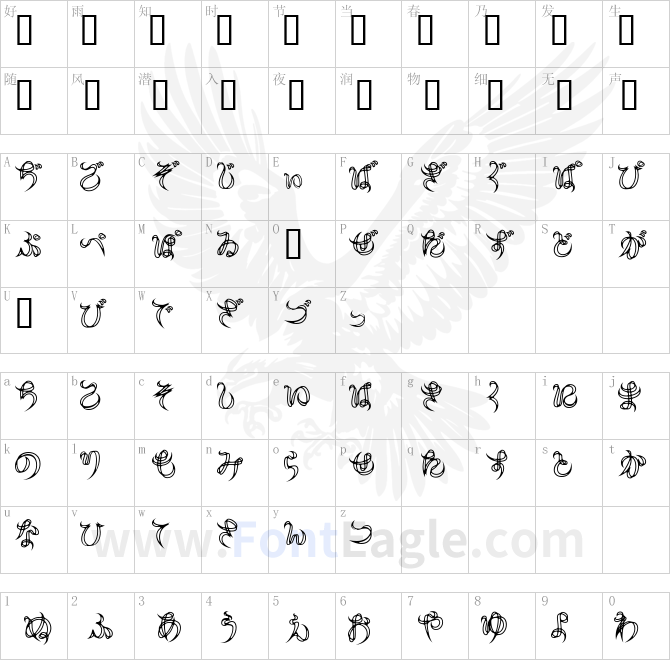
- Font name:Goutte HKF
Goutte-HKF is a great font, widely used in graphic design, single-page menu design, poster design and other fields, and is deeply loved by designers.Goutte-HKF download.